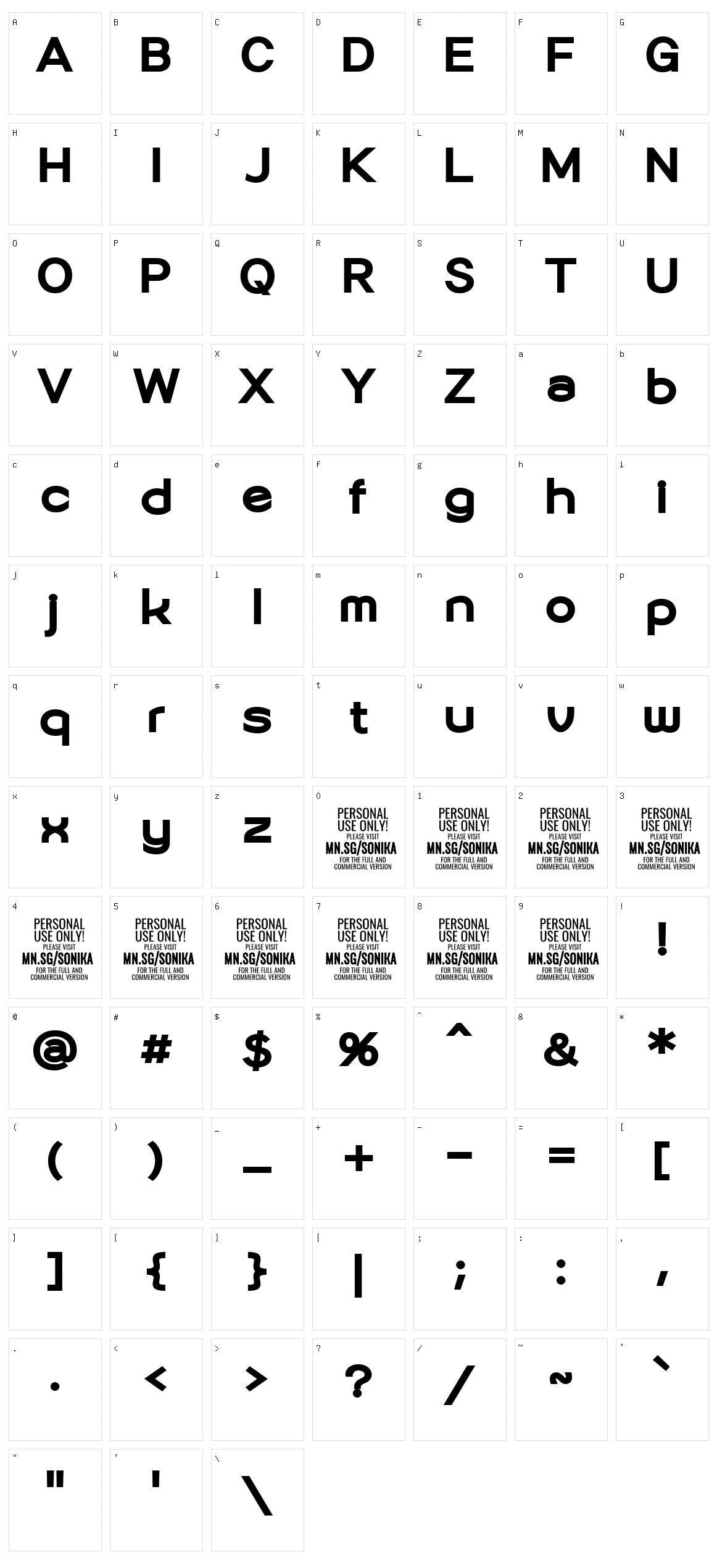
Sonika is a sleek sans-serif typeface.
With space age curves and sharp corners, it is a type to make your project forward-looking.
Sonika comes as a family of five distinct weights:
Sonika Thin, Sonika Light, Sonika Regular, Sonika Bold and Sonika Black
In addition to that there are italics, adding up to a total of ten high-quality fonts.
This font also supports a majority of European and Latin-based languages.